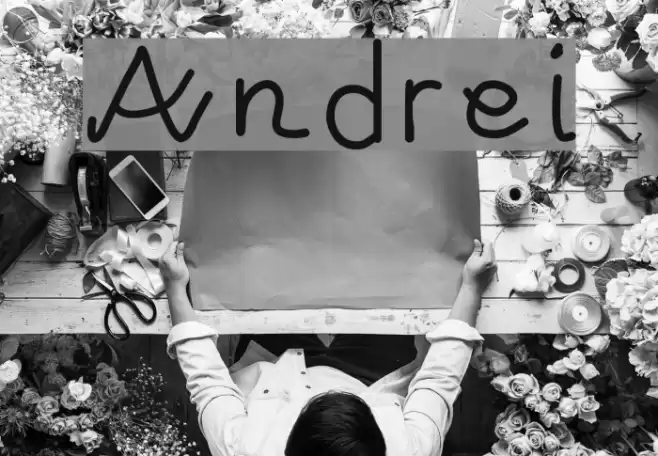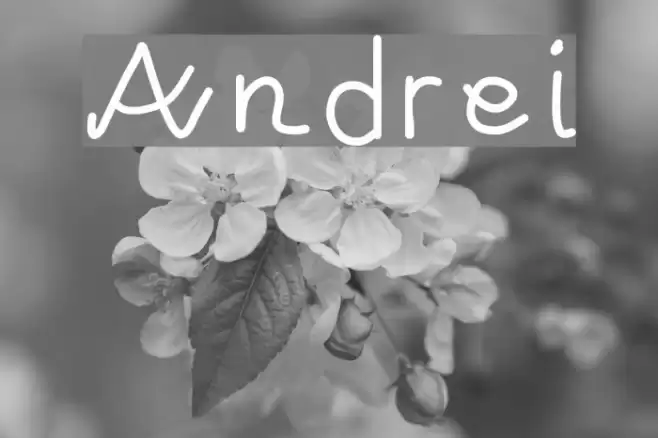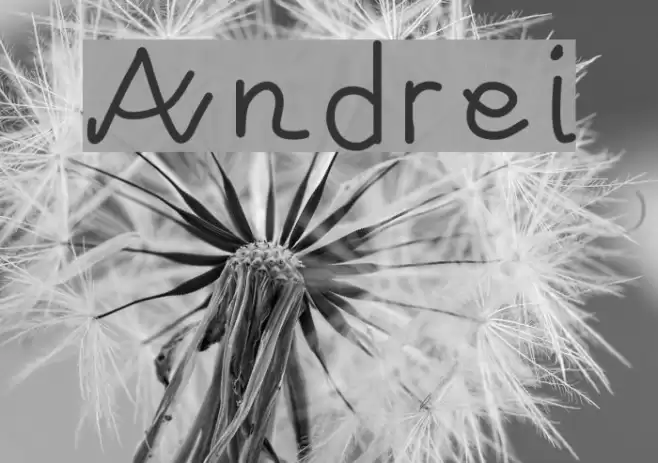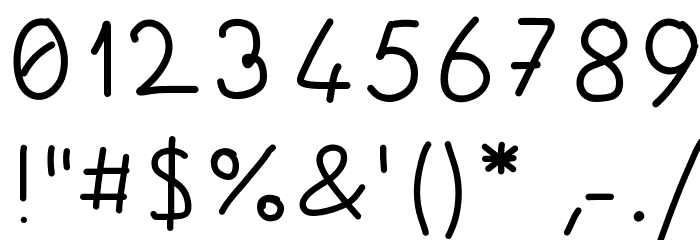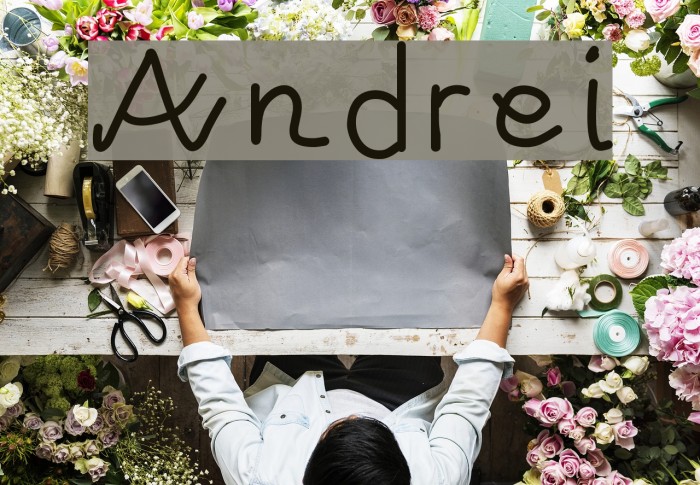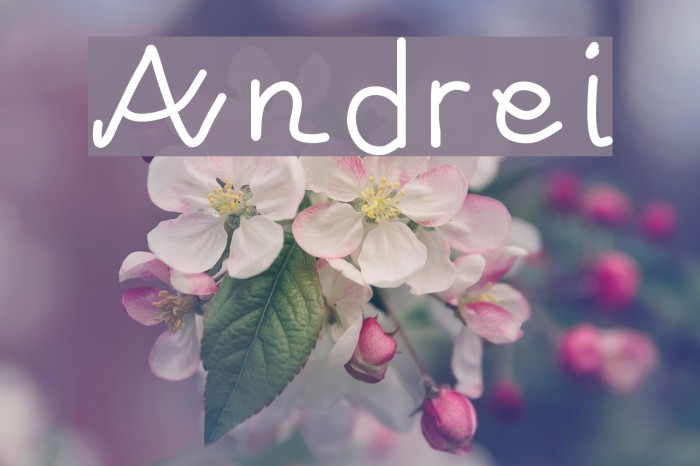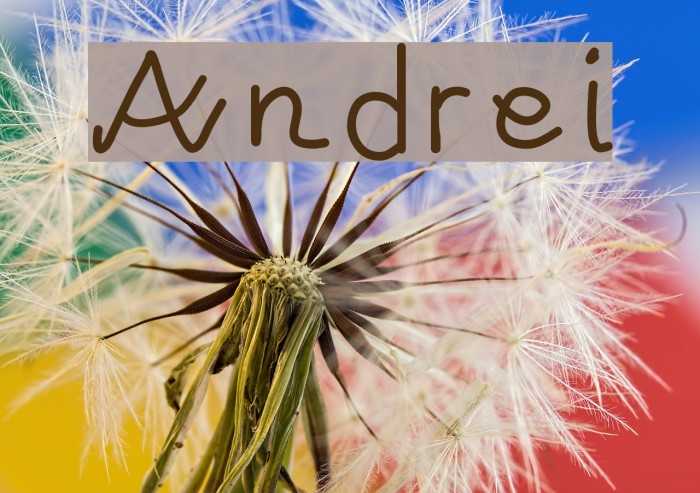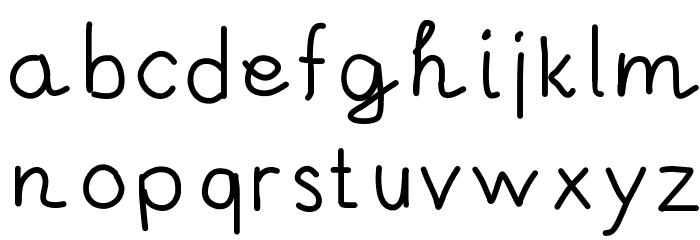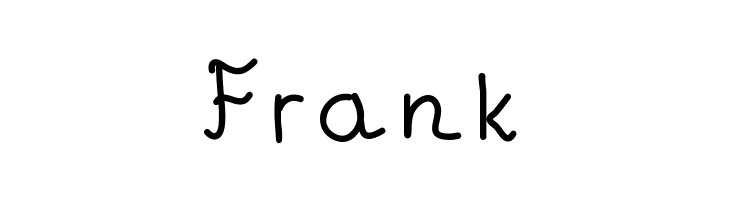
Andrei Font
Andrei Description
This font features a playful and whimsical style, characterized by its handwritten appearance. The letters have a casual, flowing form with slight variations in stroke width, giving it a natural and organic feel. The uppercase letters are bold and slightly rounded, while the lowercase letters maintain a consistent height with a slight slant, enhancing the handwritten aesthetic. The numerals are clear and legible, matching the overall playful tone. Special characters are designed with the same fluidity, ensuring consistency across all glyphs. This font exudes a friendly and approachable vibe, making it suitable for informal and creative projects.
A playful, handwritten-style font with a casual and whimsical appearance from Handwritten fonts.
- Proposed Projects: Ideal for children's books, greeting cards, invitations, and creative branding projects.
- Overall Style: Playful
- Use Case: Headlines, Logos, Creative projects